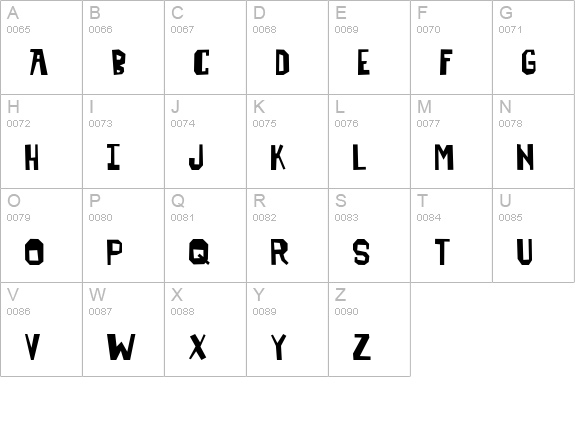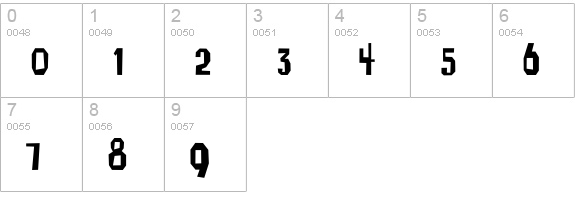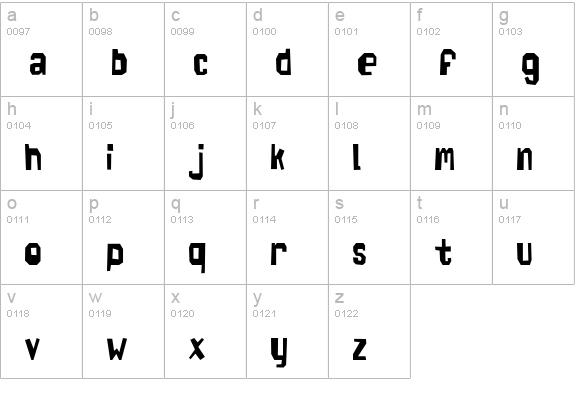
SpaceCowboy Font Details
Introducing SpaceCowboy font, a captivating and adventurous typeface that will transport you to the outer reaches of the galaxy. This font combines the boldness of a cowboy with the awe-inspiring vastness of space, creating a unique and captivating visual experience. SpaceCowboy font boasts a distinctive design, with its sharp edges and futuristic curves. It captures the essence of exploration and the unknown, making it the perfect choice for any project that needs to evoke a sense of adventure and discovery. Whether you're designing a poster for a sci-fi movie, creating a logo for a space-themed event, or simply adding a touch of cosmic flair to your personal projects, SpaceCowboy font will undoubtedly make an impact. One of the most remarkable aspects of SpaceCowboy font is that it is freely available to download at FontsMarket.com. Yes, that's right - this incredible typeface can be yours at no cost. Now you can bring the captivating allure of space and the untamed spirit of the cowboy into your designs without breaking the bank. Created by a team of talented designers, SpaceCowboy font is meticulously crafted to ensure smooth legibility and versatility. It is available in a variety of weights and styles, allowing you to customize your designs and find the perfect fit for your project. Whether you're an experienced designer or just starting out, SpaceCowboy font is a must-have in your typographic arsenal. It brings a sense of excitement and wonder to any design, making it a powerful tool for creating visually stunning and unforgettable pieces. So don't miss out on this incredible opportunity to enhance your designs with the captivating allure of SpaceCowboy font. Head over to FontsMarket.com and download it for free today. Let your creativity soar to new heights as you explore the endless possibilities that this remarkable typeface has to offer.